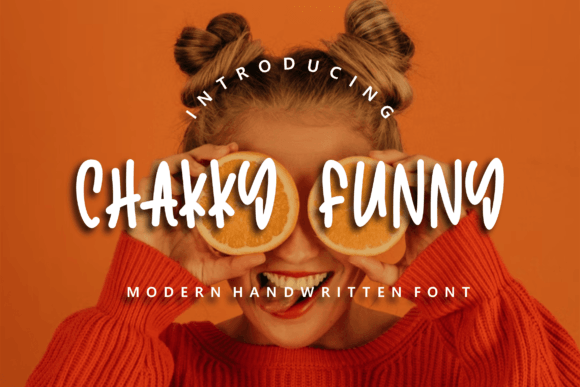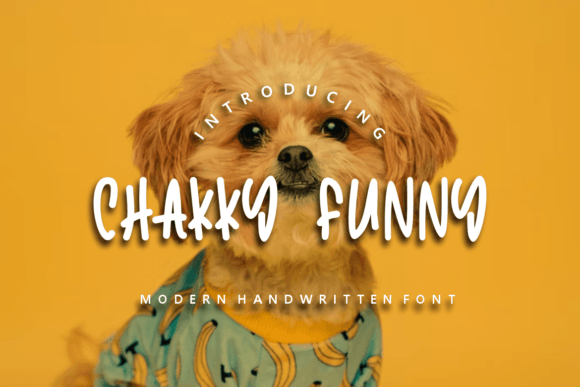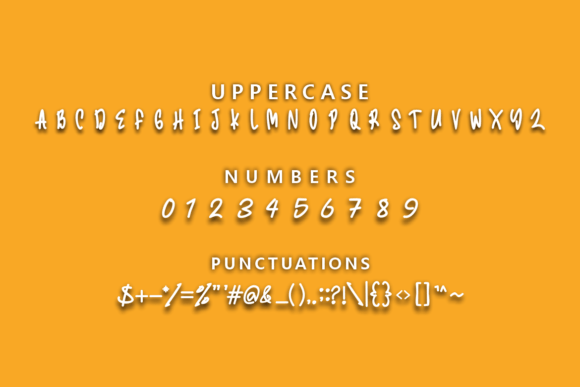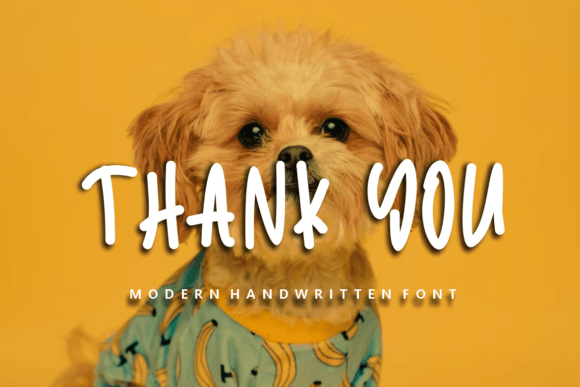
Chakky Funny Font
About Chakky Funny Font
**Chakky Funny** is a font brimming with playfulness and funky vibes, making it the perfect choice for designs that need an extra dose of joy and creativity. With its lively and whimsical appearance, this handwritten font brings a sense of fun and excitement to your creative projects, allowing them to stand out with an infectious energy.
One of the standout features of Chakky Funny is its playful nature. The font’s quirky and irregular letterforms create a sense of spontaneity and cheerfulness, making it an excellent choice for designs aimed at children, events, parties, or any project that requires a youthful and vibrant touch. Chakky Funny adds an element of delight to your creations, instantly capturing the audience’s attention and infusing them with a sense of happiness.
Chakky Funny’s versatility allows it to be applied in various design contexts. Whether used in posters, flyers, social media graphics, greeting cards, or merchandise, the font brings a lighthearted and jovial atmosphere to the design. Its playful charm makes it ideal for projects targeting a younger audience, adding a sense of fun and excitement to children’s books, games, toys, and educational materials.
The font’s funky handwritten style adds character and personality to your designs, making them more memorable and engaging. Chakky Funny is perfect for branding playful products, creating event invitations, or designing promotional materials for fun and entertaining events. Its ability to convey a sense of joy and whimsy makes it an excellent choice for any project where creativity and a sense of humor are key elements.
In summary, Chakky Funny is a playful and funky handwritten font that injects a joyful touch into your designs. Its lively and whimsical appearance makes it stand out and captures the audience’s attention with its infectious energy. By incorporating Chakky Funny into your creative ideas, you can infuse them with a sense of fun and playfulness, ensuring they leave a lasting impression of delight and cheerfulness.